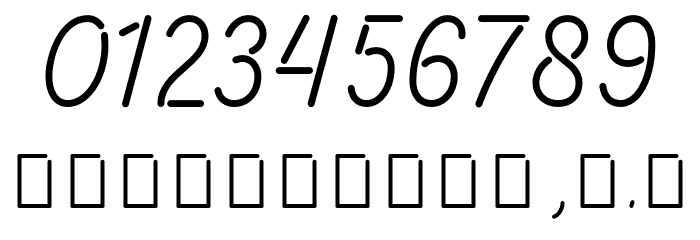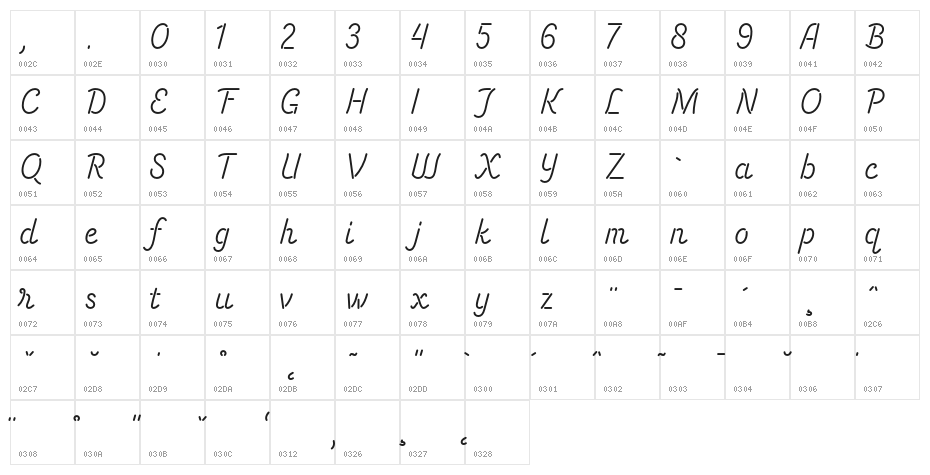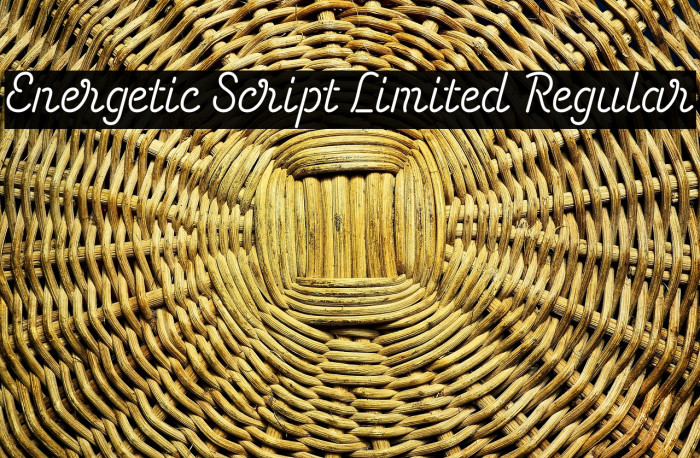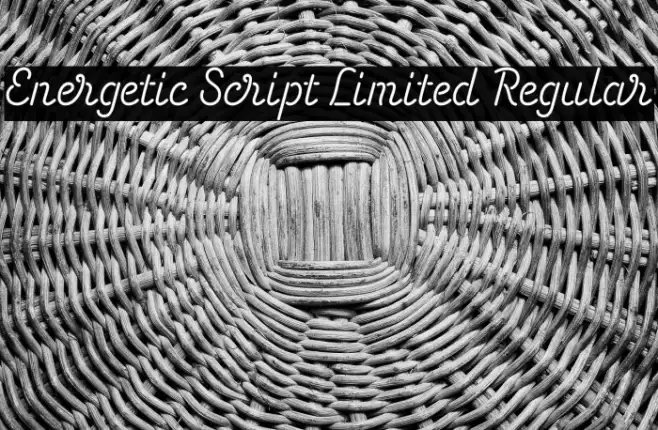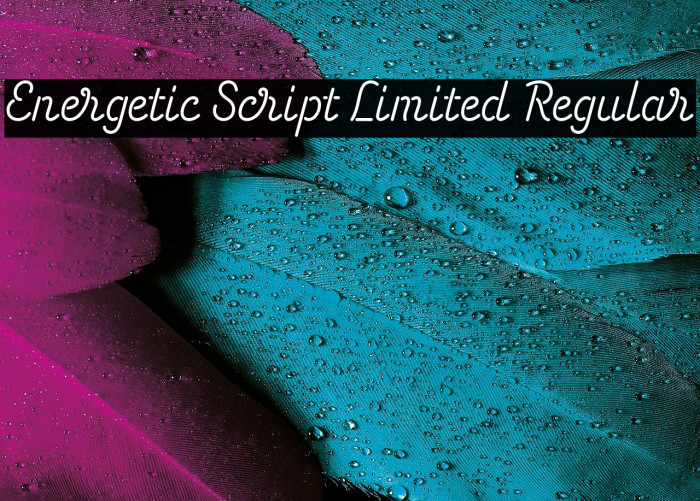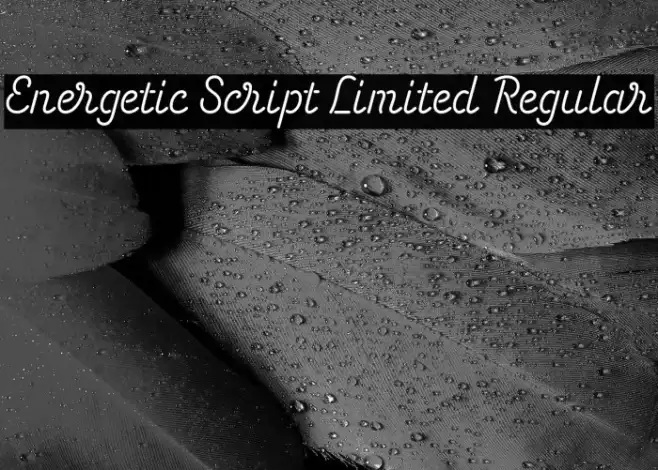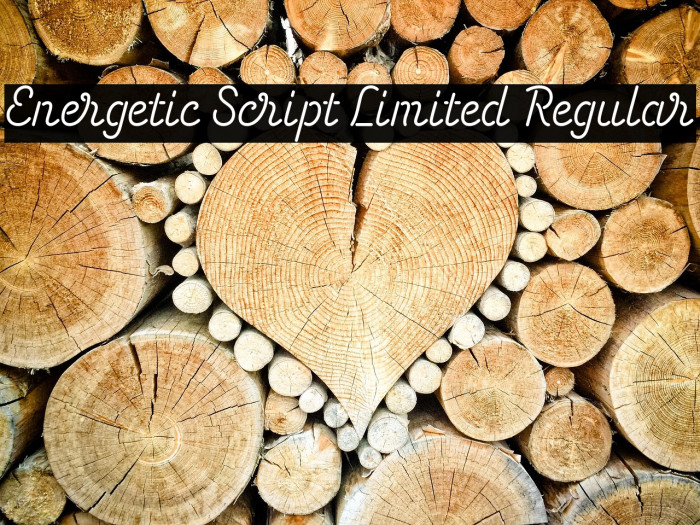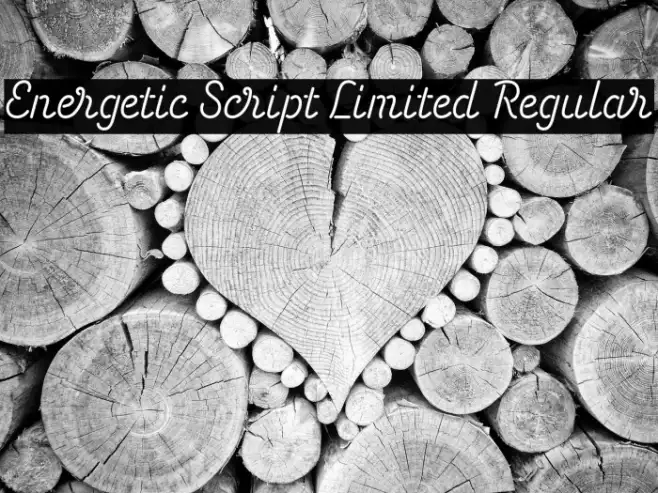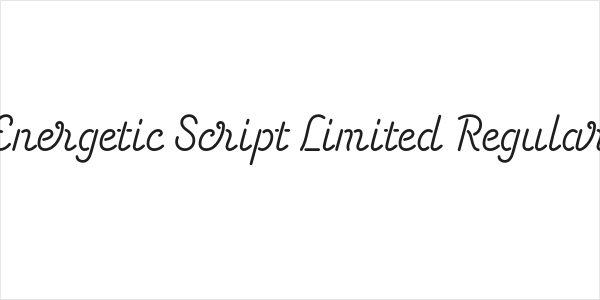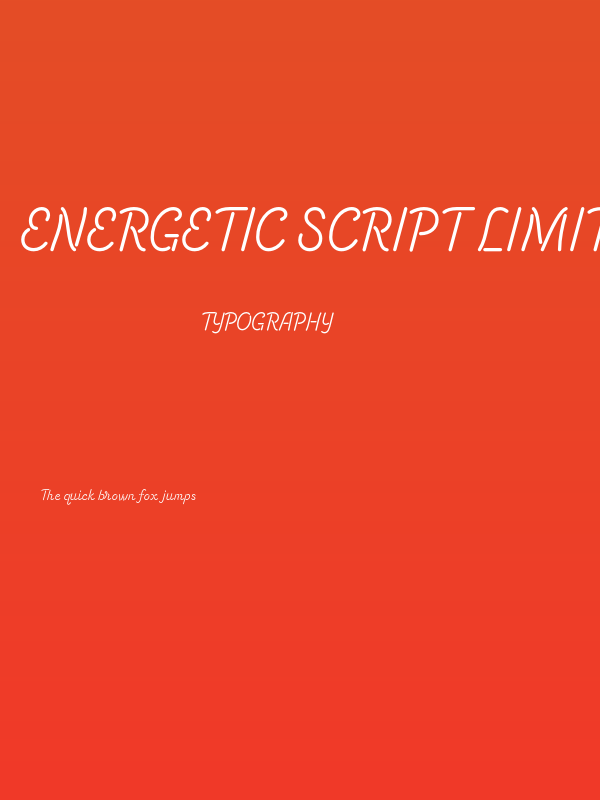
Energetic Script Limited Regular Font
Energetic Script Limited Regular Description
This font features a dynamic and flowing script style, characterized by its elegant and smooth curves. The letters are interconnected, giving it a cohesive and continuous appearance. The uppercase letters exhibit a graceful flair, while the lowercase letters maintain a consistent rhythm, enhancing readability. The numerals are designed with a similar fluidity, ensuring they blend seamlessly with the alphabet. The overall design exudes a sense of movement and energy, making it suitable for projects that require a touch of sophistication and liveliness.
| Overall Style | Elegant and Energetic |
| Use Case | Logos, Invitations, Decorative Text |
| Proposed Projects | Ideal for wedding invitations, greeting cards, branding, and elegant packaging designs. |